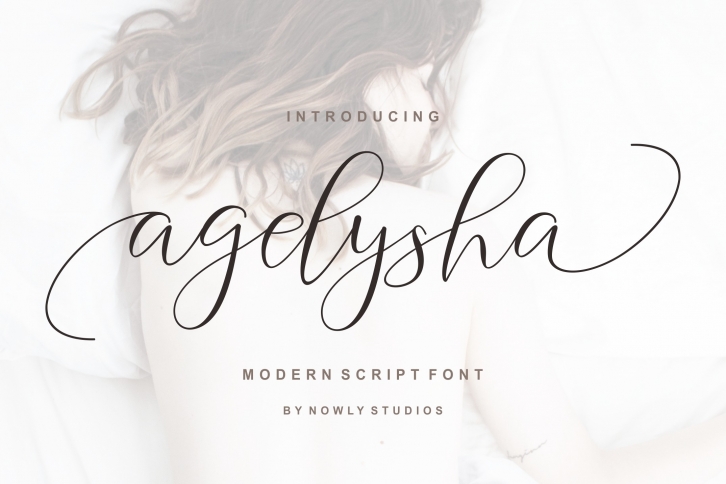
Agelysha Script is a beautiful font that was designed by Nowly Studios. It's a great choice for designers and creatives who need such a font. It was released on November 5, 2018 and the file size is 16.27 MB. Agelysha Script may give a more youthful, expressive and casual look to your project. It is a very beautiful, refined, elegant, and high-quality font.